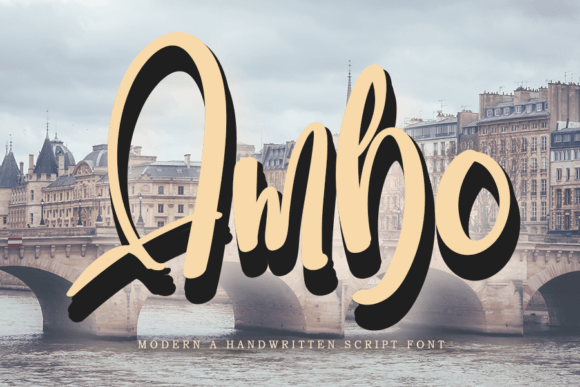
Introduction to Ambo Font
Ambo is a trendy handwritten font with a contemporary atmosphere and impeccable form, inspired by a timeless classic calligraphy.
It will add elegance and class to any of your design projects .
Key Features of Ambo Font